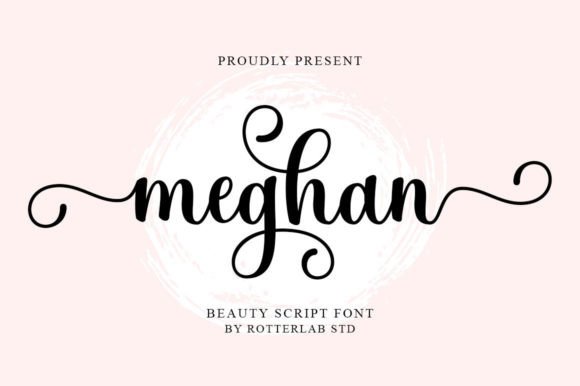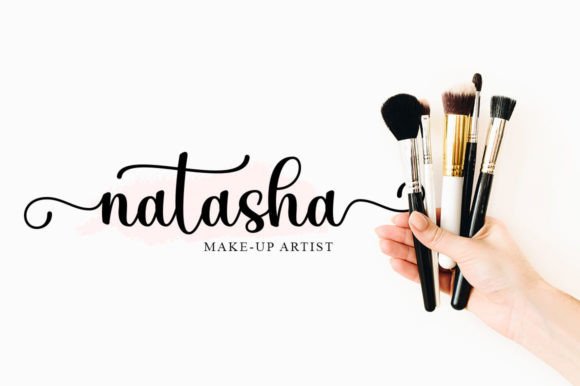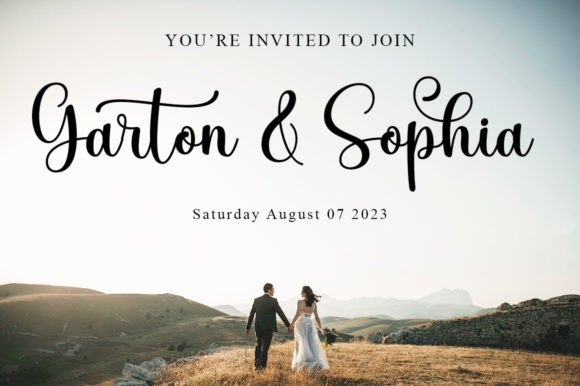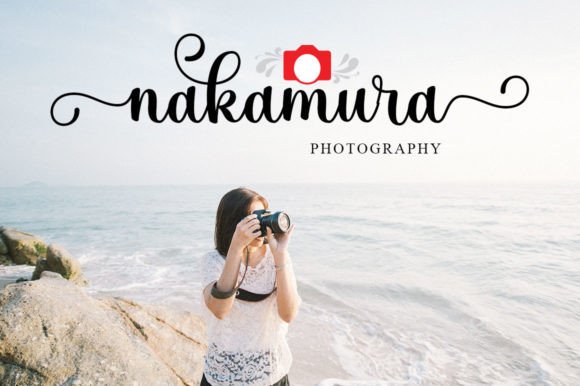
About the Meghan Font
Meghan Script
Meghan Script a new fresh & modern script with a handmade calligraphy style, decorative characters and a dancing baseline! So beautiful on invitations like greeting cards, branding materials, business cards, quotes, posters, and more!!
Meghan Script comes with 292 glyphs. The alternative characters were divided into several Open Type features such as Swash, Stylistic Sets, Stylistic Alternates, Contextual Alternates. The Open Type features can be accessed by using Open Type savvy programs such as Adobe Illustrator, Adobe InDesign, Adobe Photoshop Corel Draw X version, and Microsoft Word. And this Font has given PUA unicode (specially coded fonts). so that all the alternate characters can be easily accessed in full by a craftsman or designer.
Meghan Script :
Uppercase & Lowercase International Language & Symbols Support Punctuation & Number PUA Unicode Range Standard Stylistic Alternates Stylistic Set 1-12 Character Variant Contextual.